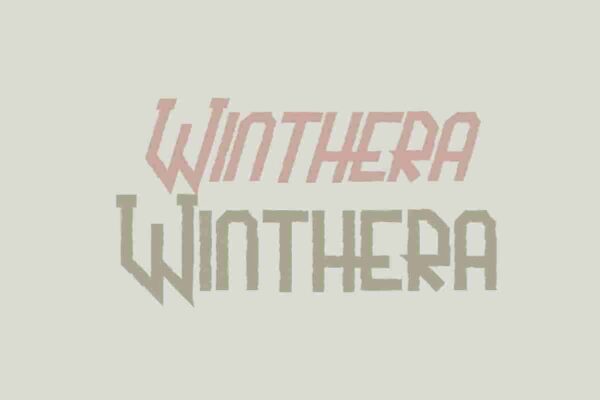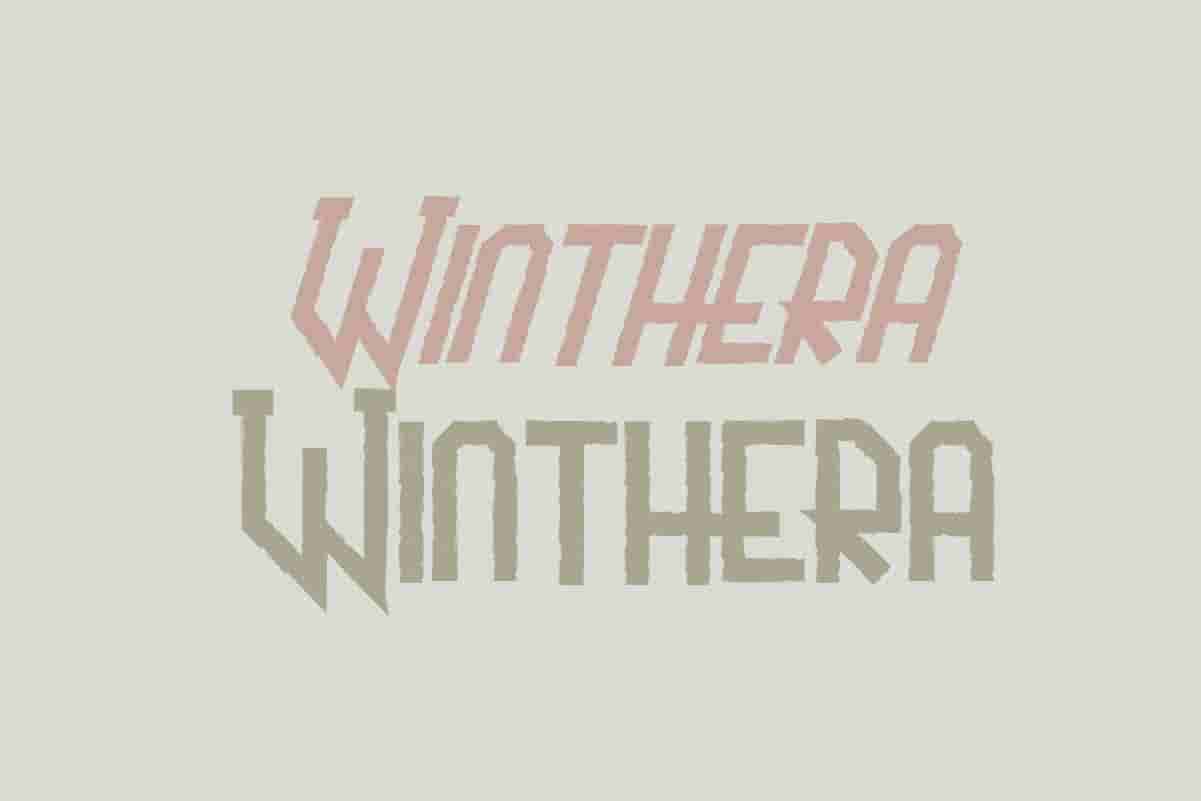
Winthera Sans Serif Font
Winthera Font is a vintage display decorative sans serif font family, designed by Rais Project. The font has style that is inspired from old American sheriff era with rough and grunge edges . It will be great for Games, Movie, Music, events, Cafe, Branding etc
Winthera Sans Serif Font is remotely made by RaisProject team in Indonesia. The font handcrafted for any your special projects including : brandings, promotion, events, games, advertising, magazine, signage, invitation, stationery, social media posts, label, or and any projects that need unique style. The industries for this font is Events, Games, Magazine, Music, Movies, Cafe, Restaurant etc On the package You will get: